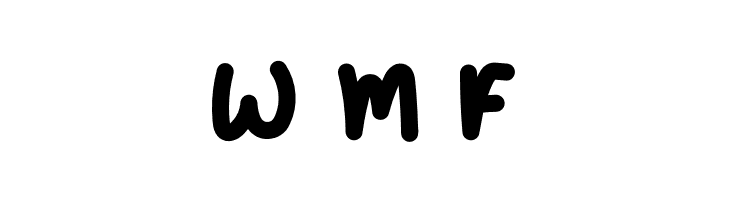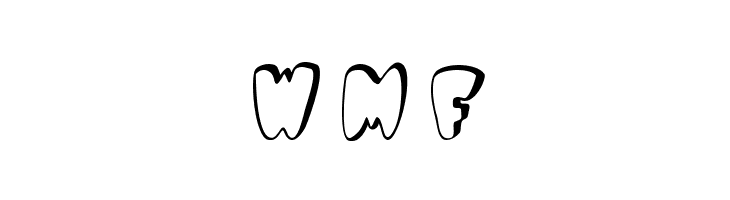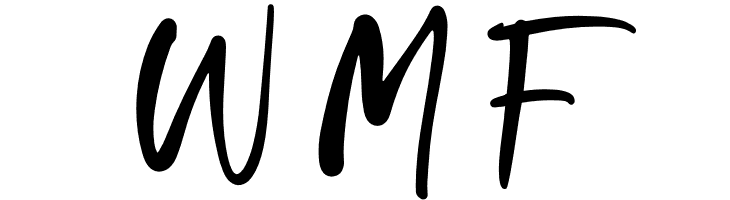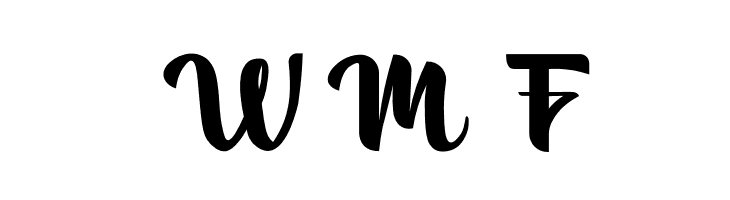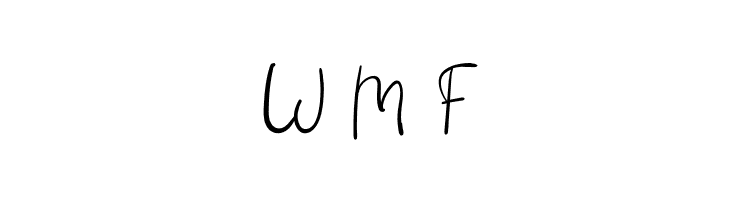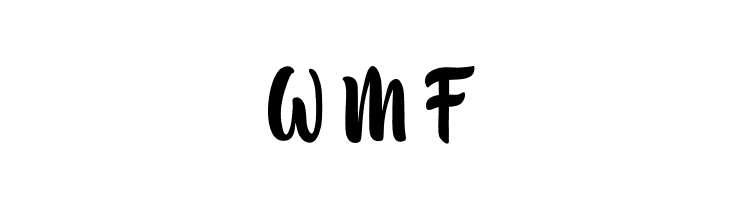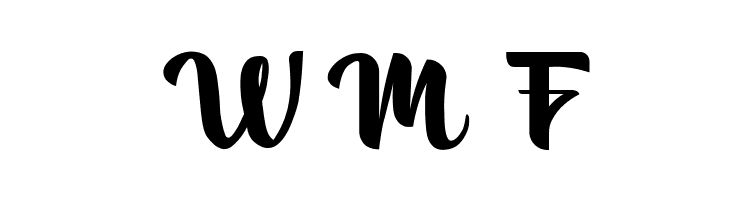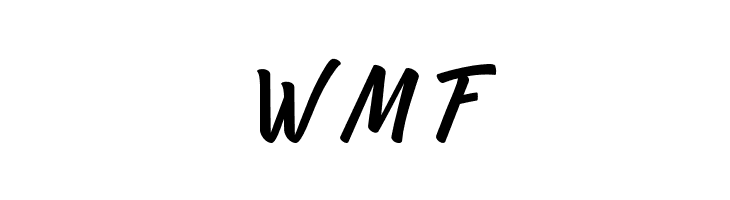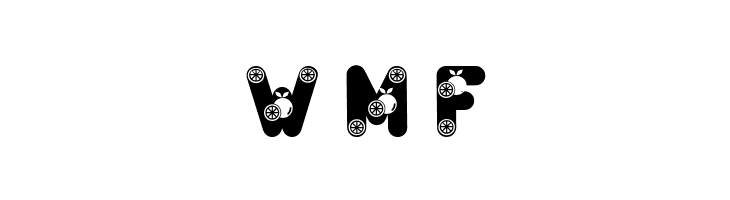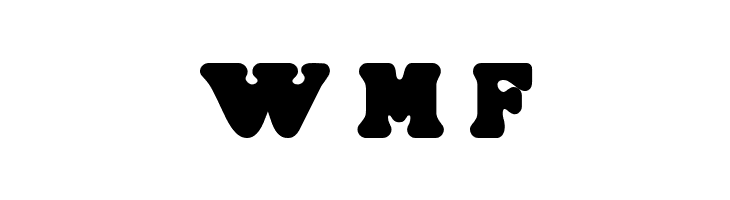
A bold, geometric font with rounded edges and uniform strokes.
A bold, angular font with a fantasy-inspired geometric style.
A bold, gothic-inspired font with sharp, angular lines and strong presence.
A bold, italicized font with sharp, angular, calligraphic influences.
A classic italic font with elegant curves and sharp serifs, reminiscent of traditional calligraphy.
A blackletter font with sharp, angular strokes and a medieval aesthetic.
A bold, italicized font with a dynamic and energetic style.
A lively, expressive handwritten font with dynamic strokes and a modern artistic flair.
A bold, playful font with rounded, thick strokes and a modern, friendly appearance.
A dynamic, flowing script font with elegant curves and a handwritten feel.
A bold, fiery font with dynamic, jagged edges conveying motion and excitement.
A bold, dynamic script font with fluid, connected letterforms.
A playful, bold font with rounded, bubble-like characters.
A bold, distressed font with a grunge, ransom note style.
A bold, distressed font with a rugged, vintage appearance.
A bold, expressive script font with flowing, interconnected strokes and a modern flair.
A bold, expressive handwritten font with dynamic curves and playful swashes.
A playful, bold handwritten font with thick, rounded strokes.
A playful and artistic font with unique decorative elements and a modern flair.
A bold, decorative font with fruit motifs embedded in each character.
A bold, flowing script font with interconnected letters and a playful style.
A bold, playful handwritten font with thick strokes and a casual style.
A bold, artistic font with high contrast and unique curves.
A bold, playful font with rounded edges and a whimsical style.
A classic serif font with elegant strokes and a timeless charm.
A collection of bold, high-contrast icons and symbols in a modern style.
A bold, playful font with thick, rounded strokes and a bubble-like appearance.
A bold, handwritten script font with a playful and dynamic style.
A playful, bold font with rounded, bubbly characters.
A modern, abstract font with elongated, angular letterforms and decorative elements.
A playful, handwritten font with a whimsical and elegant style.
A bold, playful font with rounded edges and a slightly condensed style.
A bold, blocky font with a strong and impactful design.
A playful, bubble-like font with thick outlines and a cartoonish style.
A bold, playful font with thick, rounded strokes and a cohesive, friendly appearance.